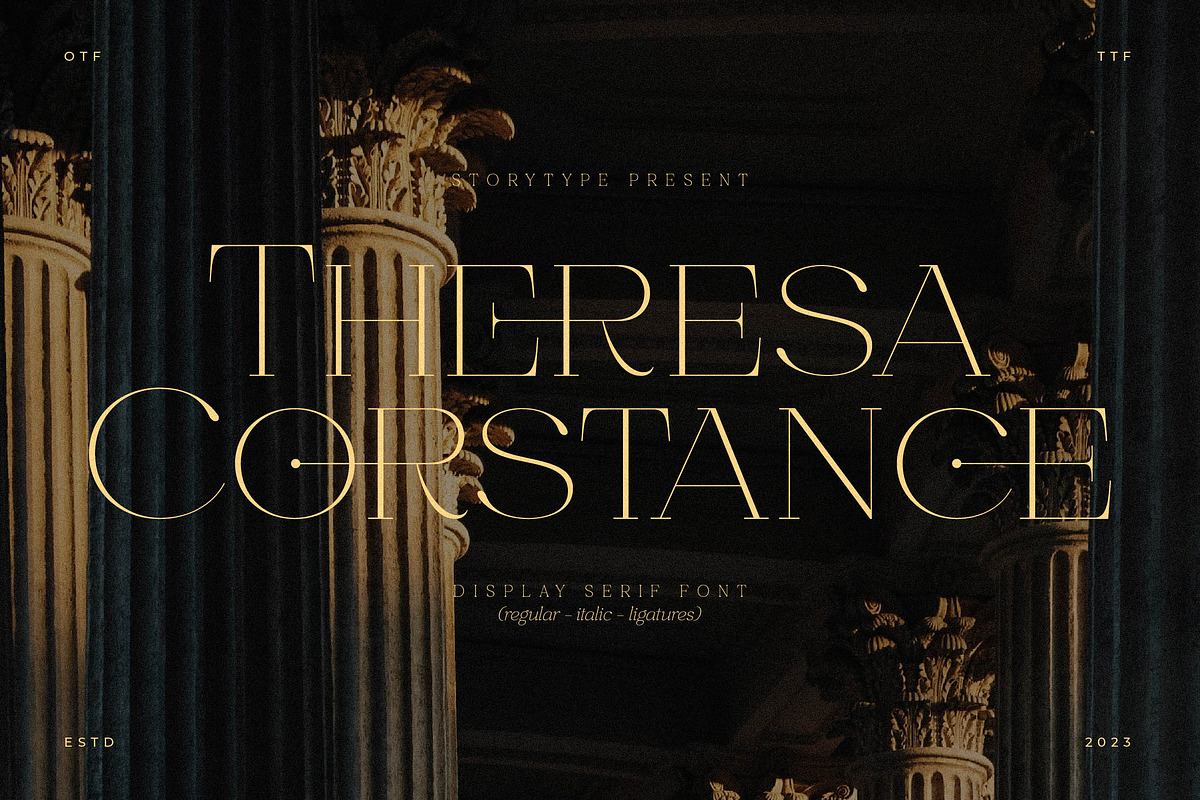
Theresa Cornstance Display Serif Free Download
Theresa Cornstance Display Serif Font Free Download
The Theresa Cornstance Display Serif Font Free Download is a bold and elegant font perfect for making a statement in your designs. With its sophisticated serif styling, this font is ideal for high-end branding, editorial layouts, logos, and posters. Its distinctive design combines modern elements with a classic touch, offering both style and readability. Please note that to use this font for commercial purposes, you will need to purchase a license. For personal use, feel free to download the Theresa Cornstance Display Serif Font Free Download and explore its versatility. Whether you're working on luxury product designs or creating striking headlines, this font will help elevate your creative projects to new heights. Download the Theresa Cornstance Display Serif Font Free Download today and give your designs a refined and polished look.